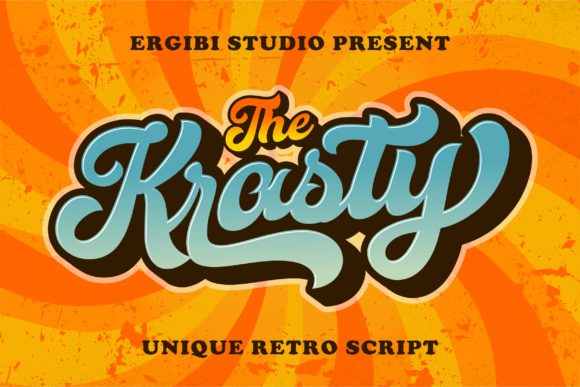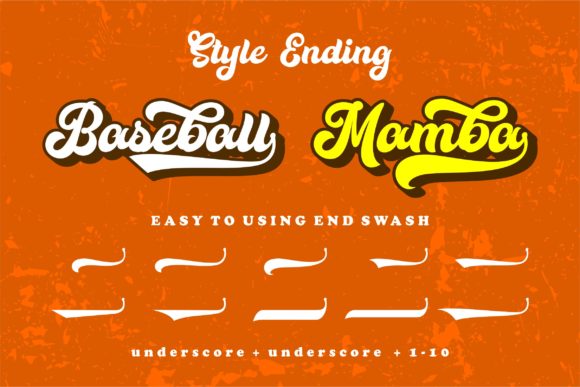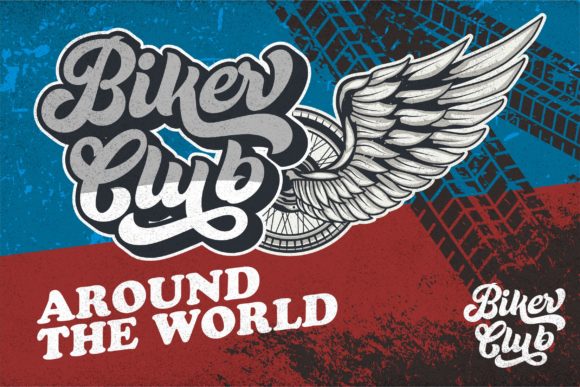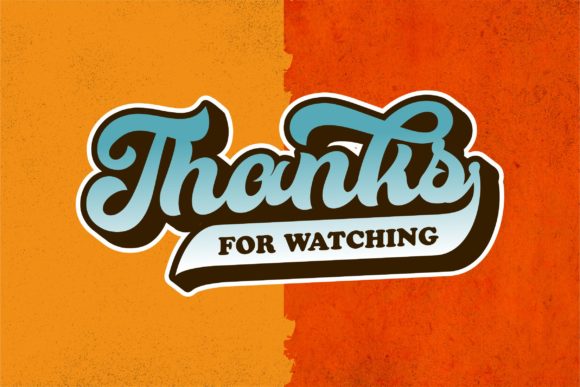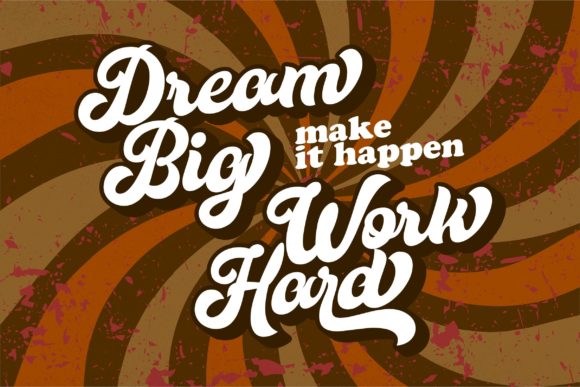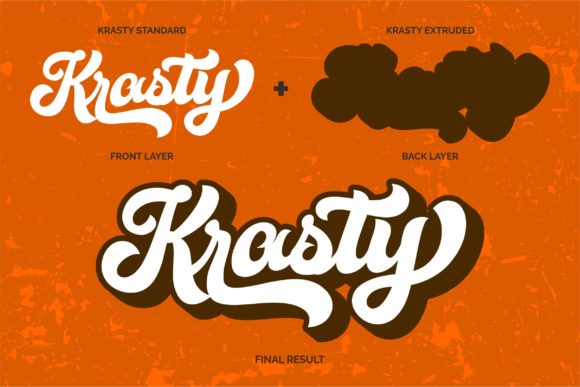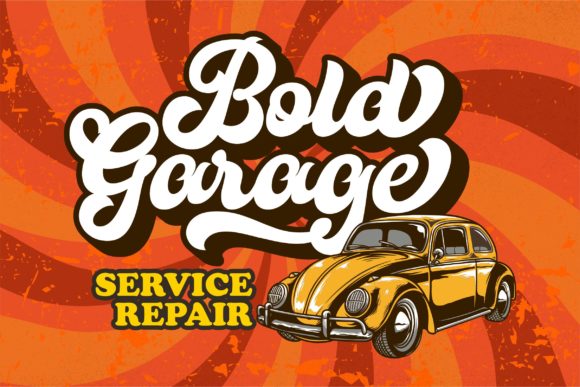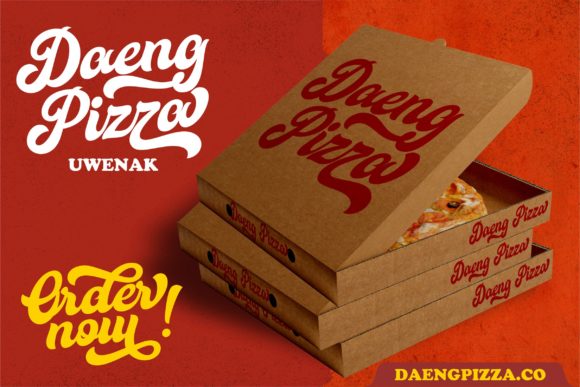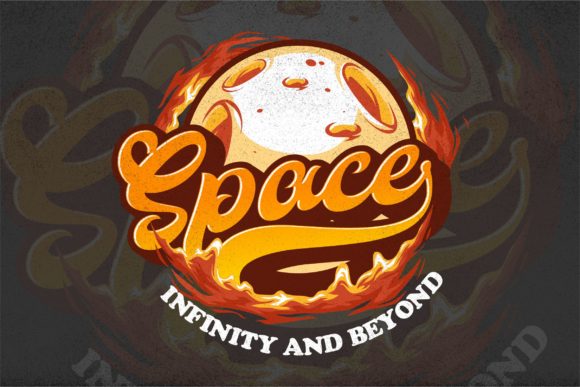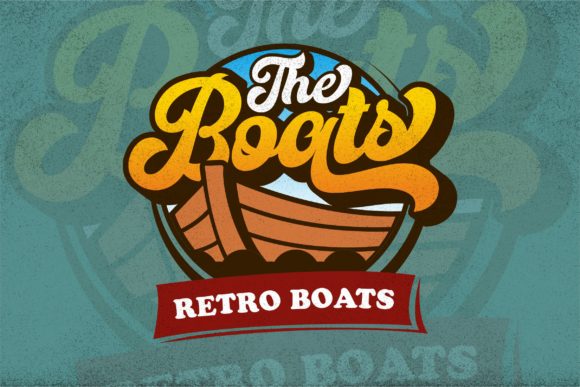
Krasty Font
About Krasty Font
Unique retro inspired letters from the past, this typeface has an extrusion version so you can create unique retro effects very easily.